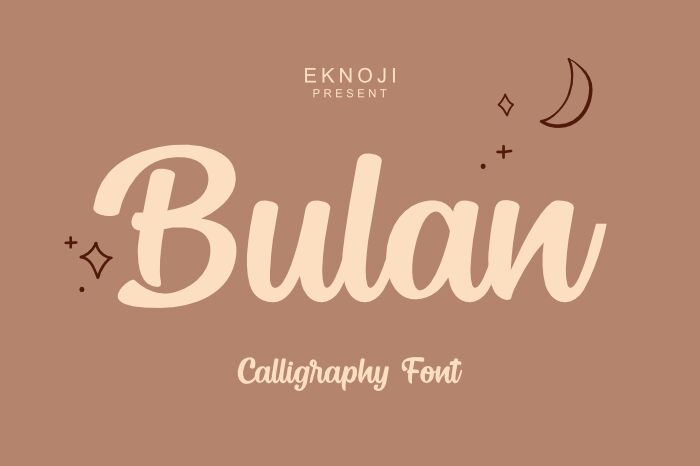
Bulan
Bulan font is a free brush font created by Eknoji Studio that marches to the beat of its own drum. The modern, casual display design has an open airy feel with large voids and rounded details found across all characters. From expressive to smooth and flowing to rough, Bulan displays a variety of texture patterns in its different stylistic variants.